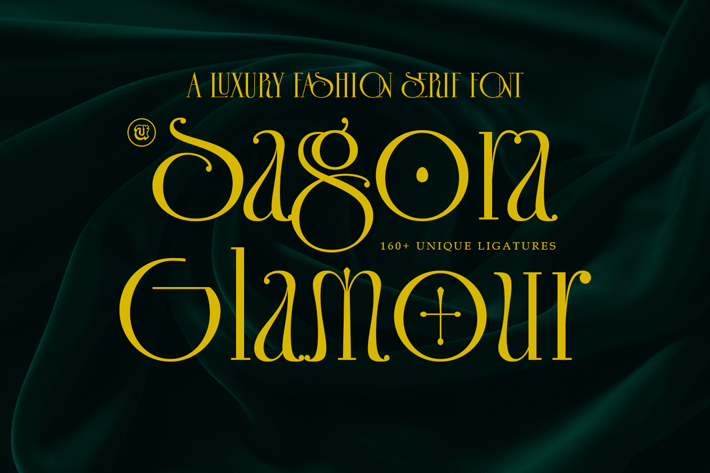
Sagora Glamour - A Luxury Fashion Serif Font
Sagora Glamour is a typeface crafted to embody luxury, refinement, and timeless beauty—a condensed serif that transforms typography into an artful statement. Designed with the discerning in mind, it speaks to high-end fashionistas elevating their branding, luxury lifestyle curators adding sophistication to publications and events, creative visionaries infusing opulence into editorial and advertising, and designers striving for perfection in every project. Its bold elegance seamlessly marries versatility with exclusivity, making it the go-to choice for those who demand nothing less than extraordinary in their design narratives.
The Story Behind the Design
Sagora Glamour’s essence is rooted in the intersection of Art Deco’s glamour and Art Nouveau’s fluidity. We drew inspiration from the peacock’s majestic plumage, the golden ratio’s timeless beauty, and the confident lines of high-fashion silhouettes. The result? A typeface that embodies both luxury and approachability.
Sagora Glamour draws its essence from the elegance of Art Deco and the fluidity of Art Nouveau. Its geometric balance stems from the golden ratio, ensuring each curve and stroke resonates with timeless beauty. This meticulous proportioning not only elevates the visual appeal but also connects the font to the principles of classic design.
The peacock, a symbol of beauty and grace, served as the muse for Sagora Glamour’s unique terminals and counter strokes. The curved forms mirror the intricate flow of a peacock’s feathers, adding an organic touch to its structured style. This fusion of nature and geometry creates a design that is both luxurious and approachable, celebrating both opulence and subtlety.
Moreover, Sagora Glamour takes inspiration from the human form, particularly the poise and proportions of fashion models. This gives the typeface a natural elegance, echoing the confident lines and contours of runway silhouettes. It’s a typeface designed to captivate and communicate sophistication at every glance.